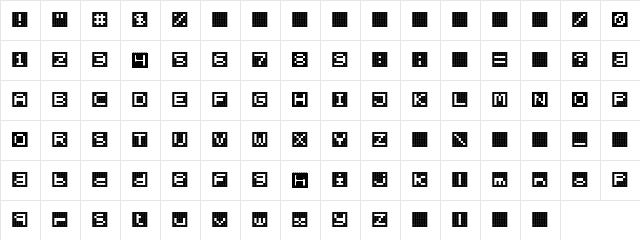
Vengaboyz Regular
Design Context for Vengaboyz Typeface
Vengaboyz is a composed and adaptable typeface that performs quietly and consistently across a wide range of design contexts.